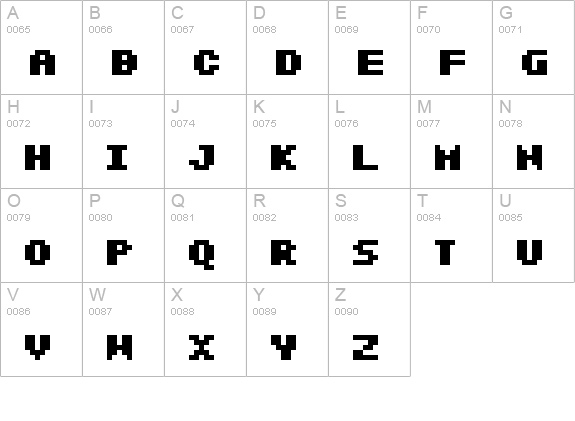
SF Intermosaic B Bold Font Details
SF Intermosaic B Bold is a strong, high-contrast variant in the SF typeface family \xE2\x80\x94 well suited to headlines, attention-grabbing titles, and strong calls-to-action.
SF Intermosaic B Bold is a captivating and visually striking font that encapsulates the essence of modern design infused with a touch of futuristic appeal. With its bold and strong letterforms, this font commands attention and adds a sense of authority to any typographic project. The SF Intermosaic B Bold font is the perfect choice for those seeking a unique and eye-catching typeface that effortlessly blends elegance and sophistication with a contemporary edge. Its geometric and mosaic-inspired letterforms are meticulously crafted, ensuring a clean and polished finish that is both visually appealing and highly legible. One of the standout features of SF Intermosaic B Bold font is its versatility. Whether it's used in headlines, titles, logos, or branding materials, this font effortlessly adapts to any design concept and effortlessly conveys a sense of modernity and style. Its bold and commanding presence on the page makes a lasting impression, ensuring maximum impact and engagement with the audience. But what truly sets SF Intermosaic B Bold font apart is that it is freely available to download at FontsMarket.com. This means that designers and creatives can access this exceptional font without any cost, allowing for greater flexibility and accessibility in their projects. Whether you are a professional designer or an aspiring creative, SF Intermosaic B Bold font empowers you to bring your ideas to life without any financial constraints. In conclusion, SF Intermosaic B Bold font is a remarkable typeface that combines modern aesthetics with a touch of futurism. Its bold and commanding letterforms make a bold statement, while its versatility ensures seamless integration into any design project. And with its availability as a free download on FontsMarket.com, SF Intermosaic B Bold font opens up a world of creative possibilities for designers and creatives alike.